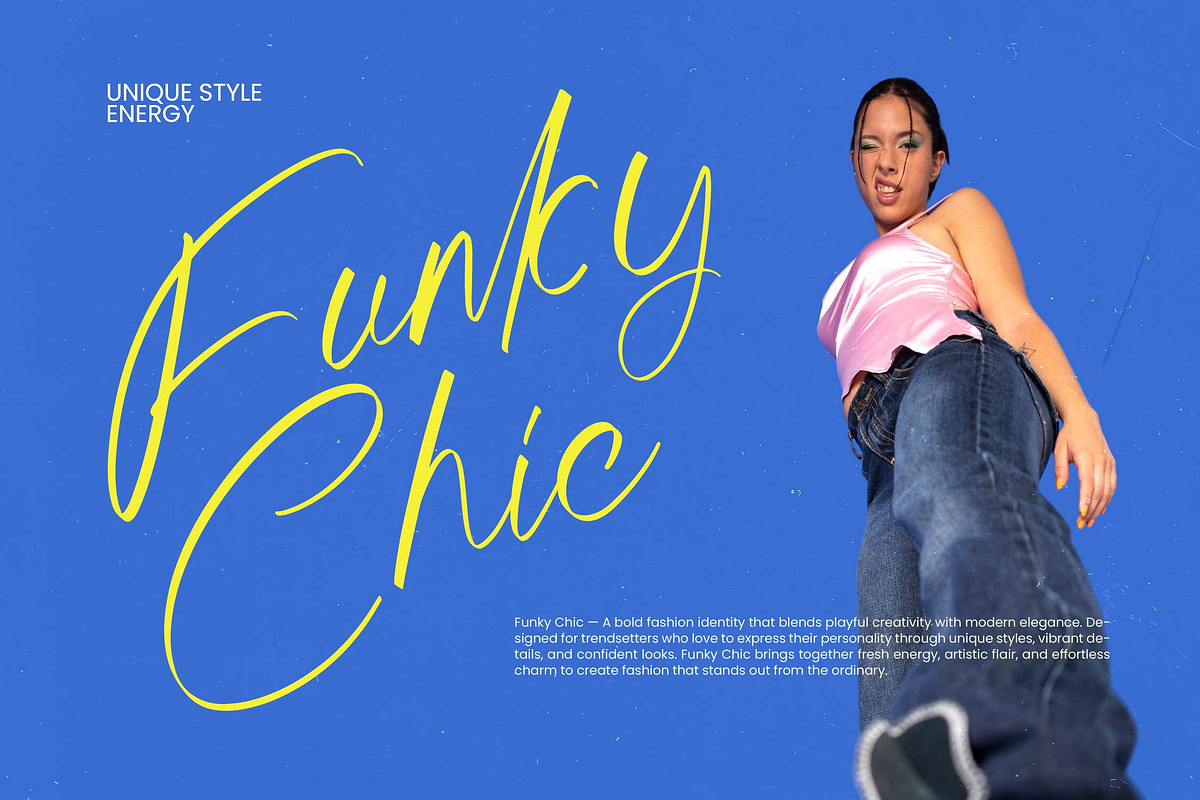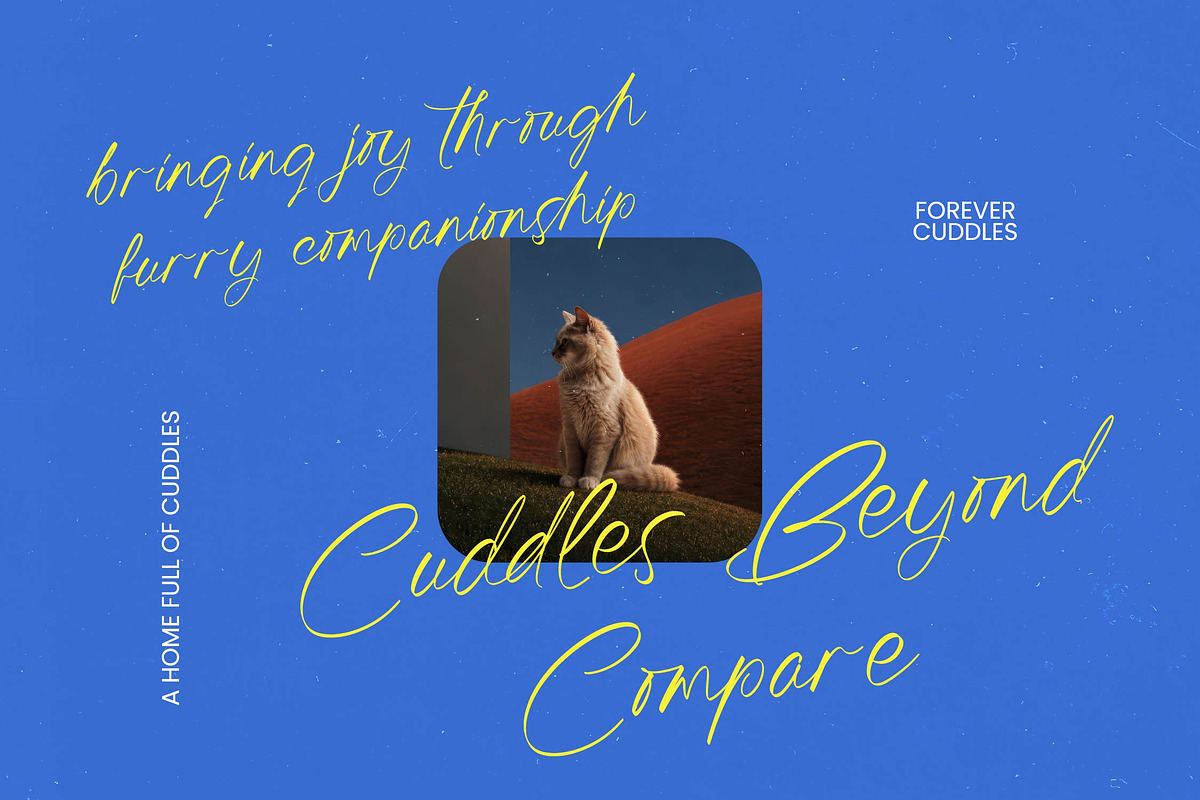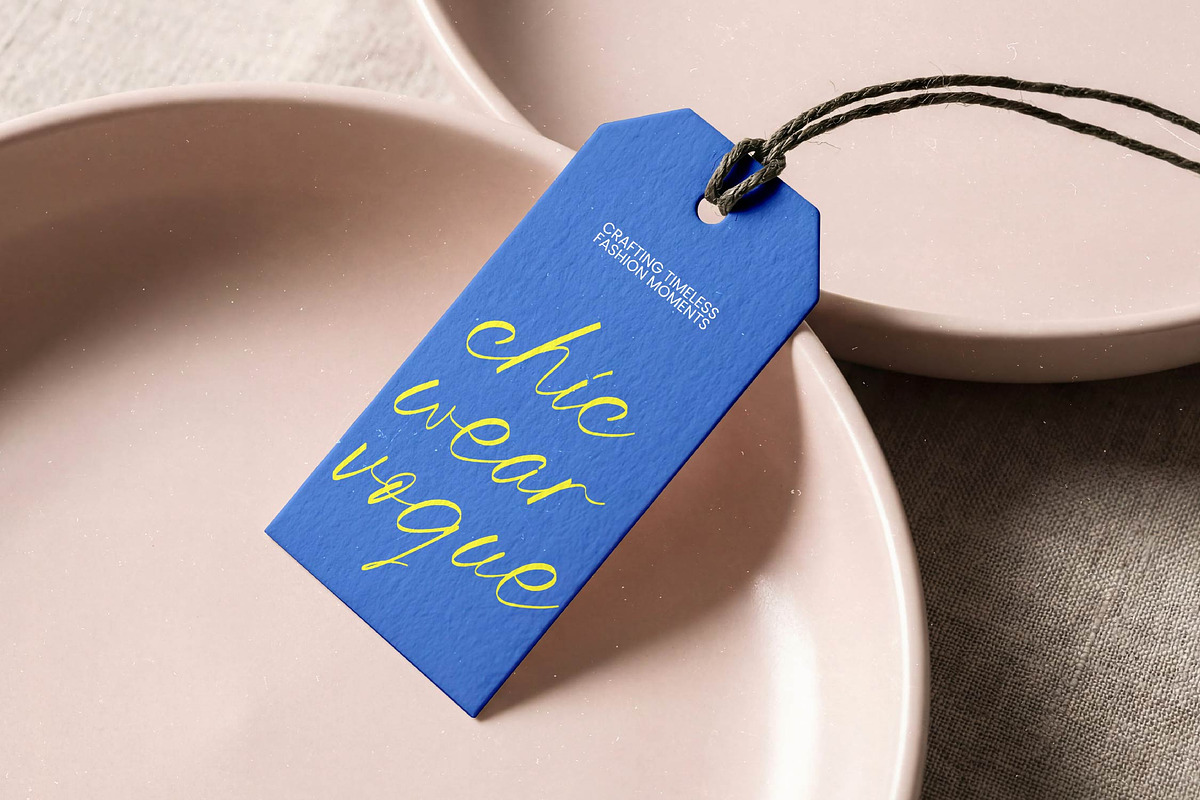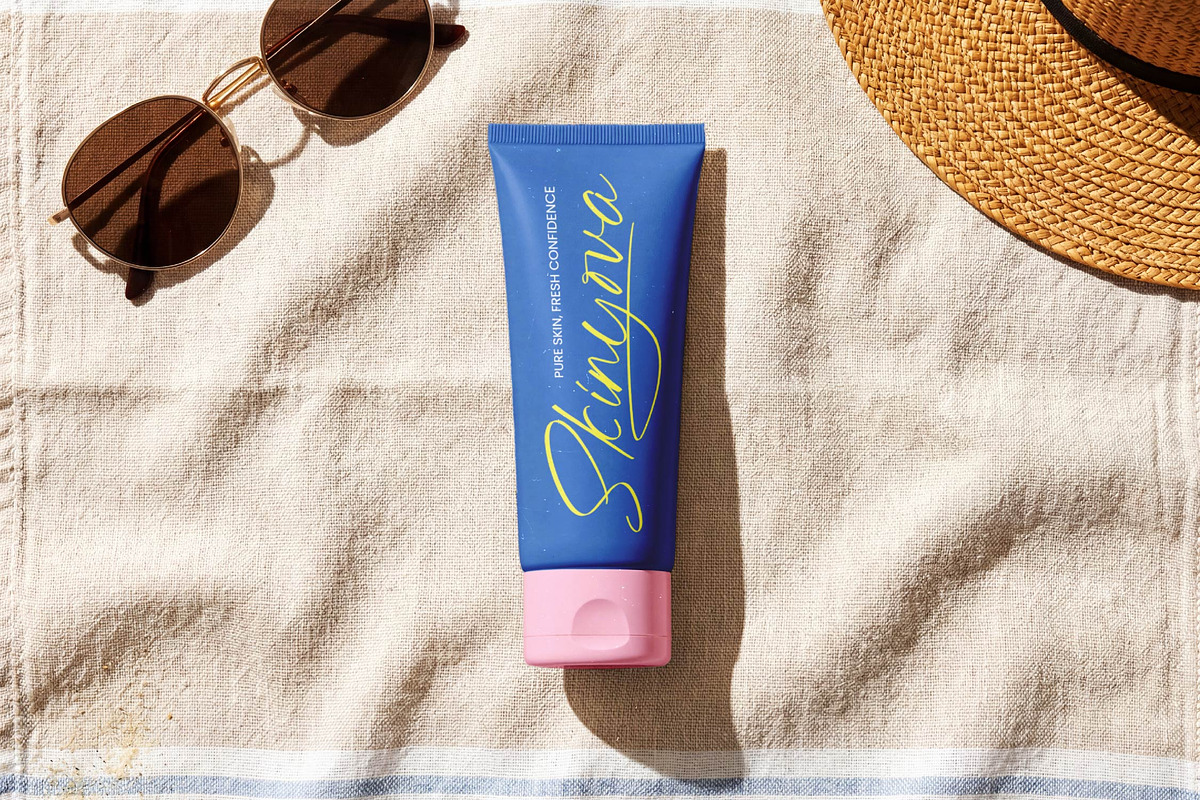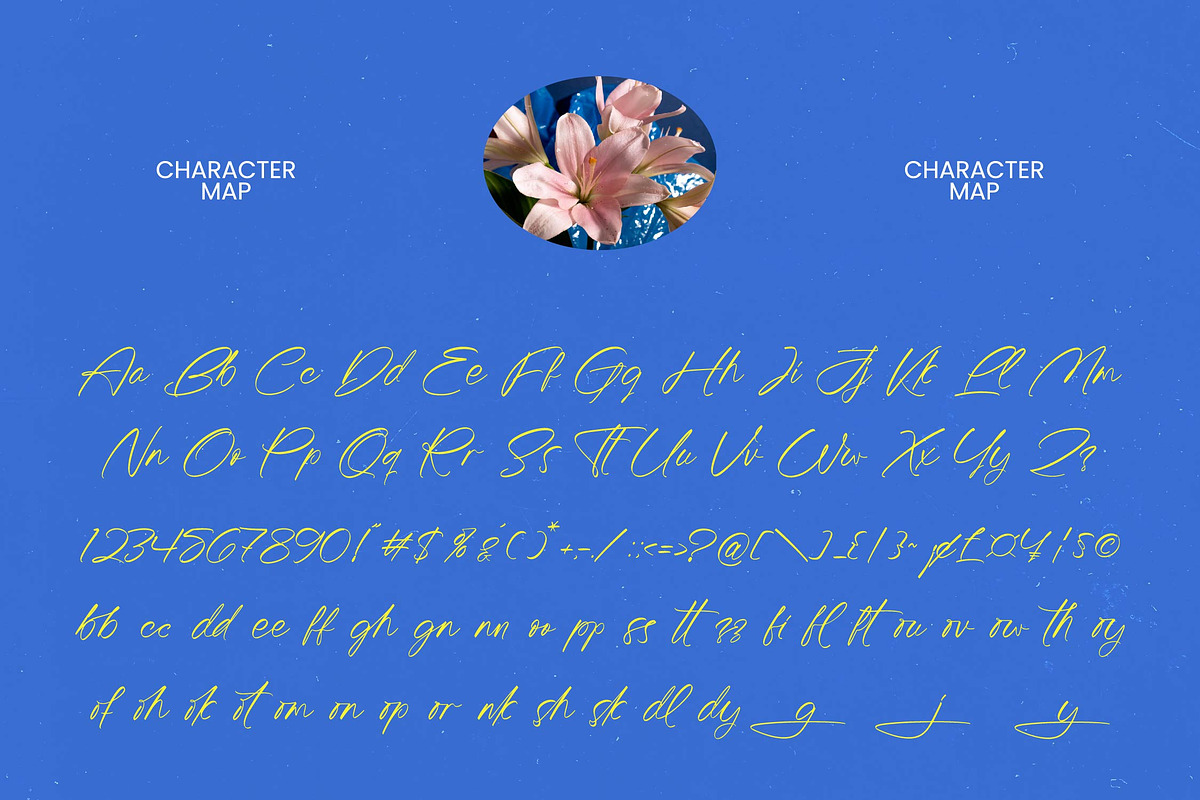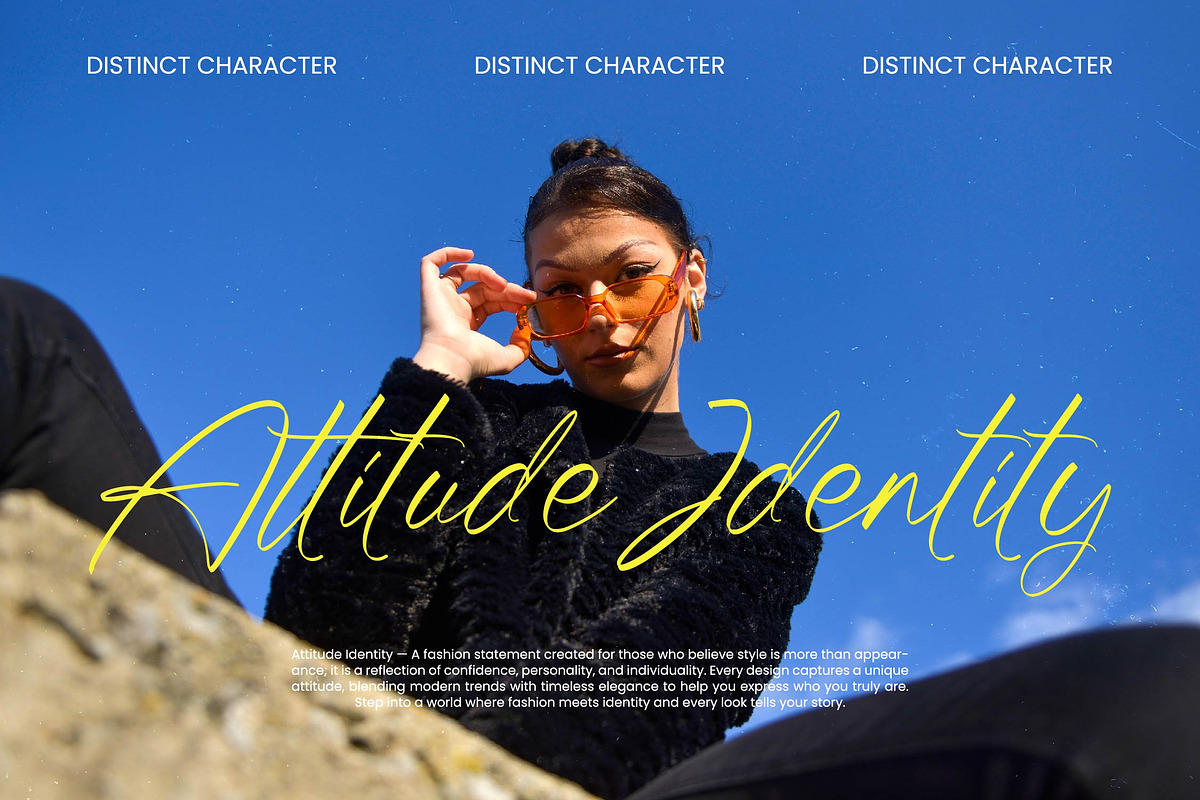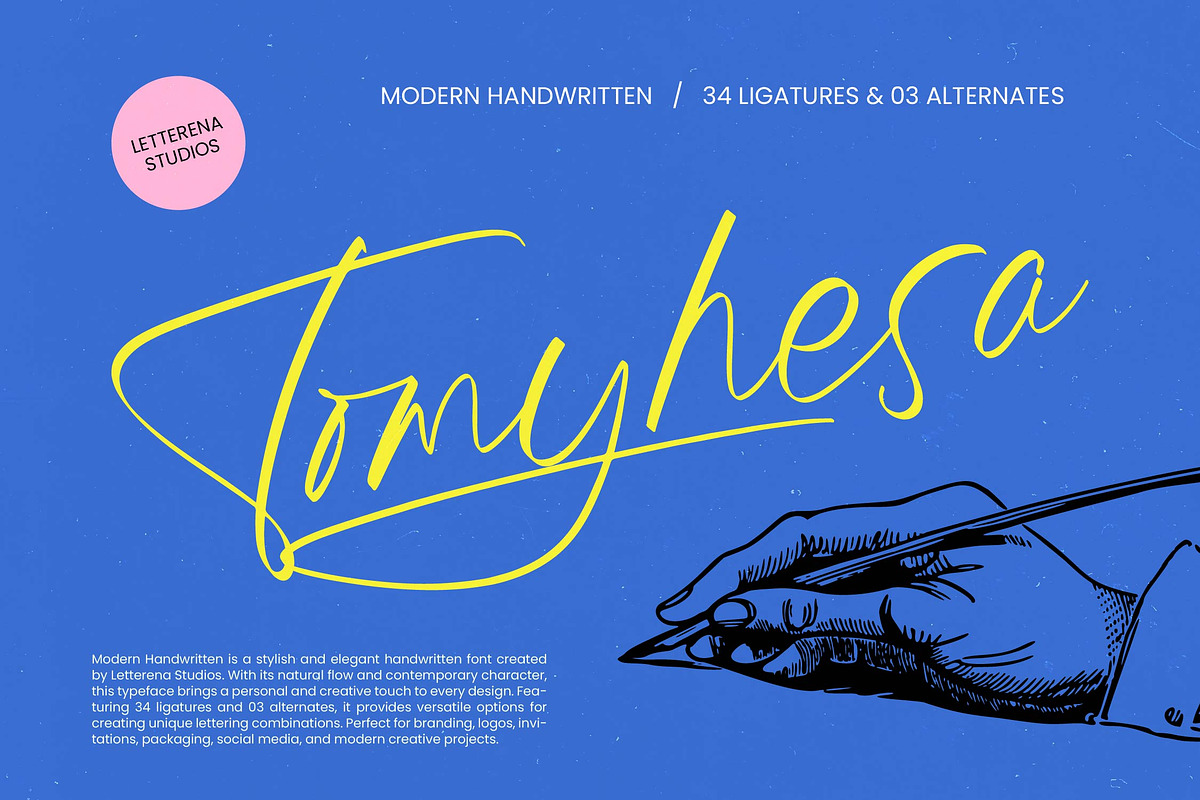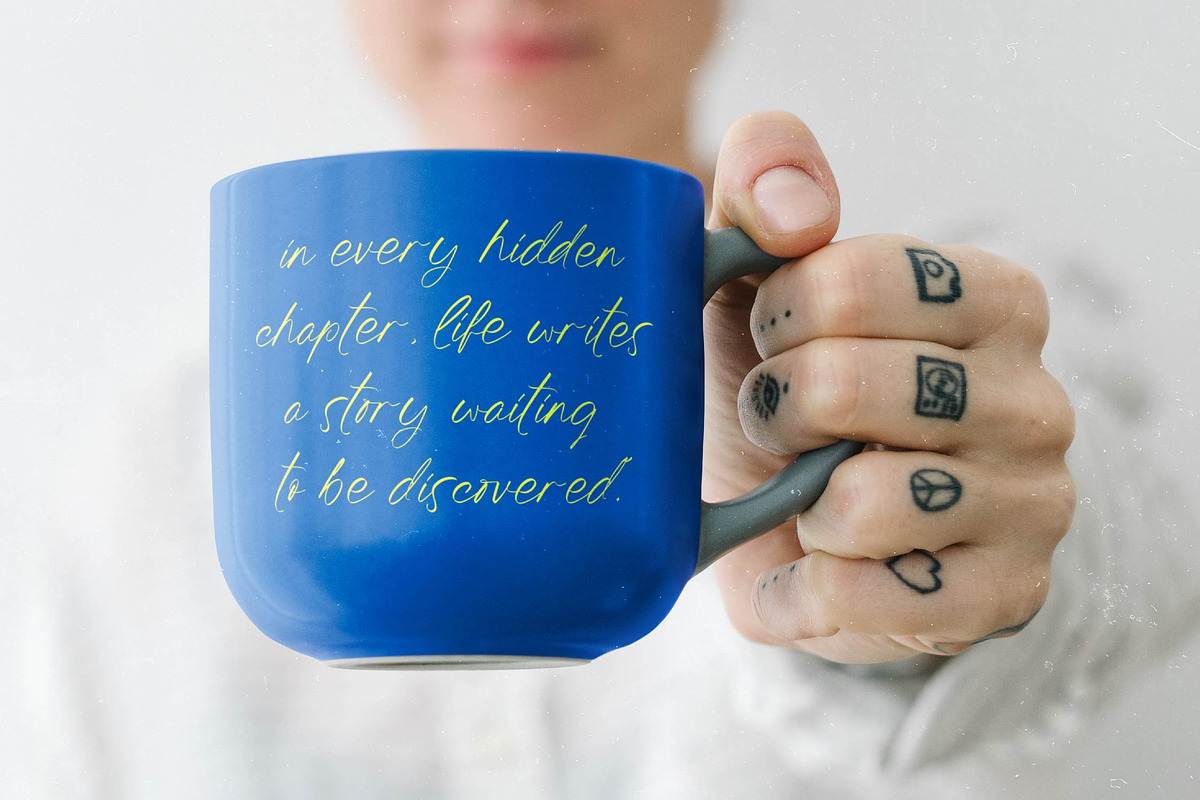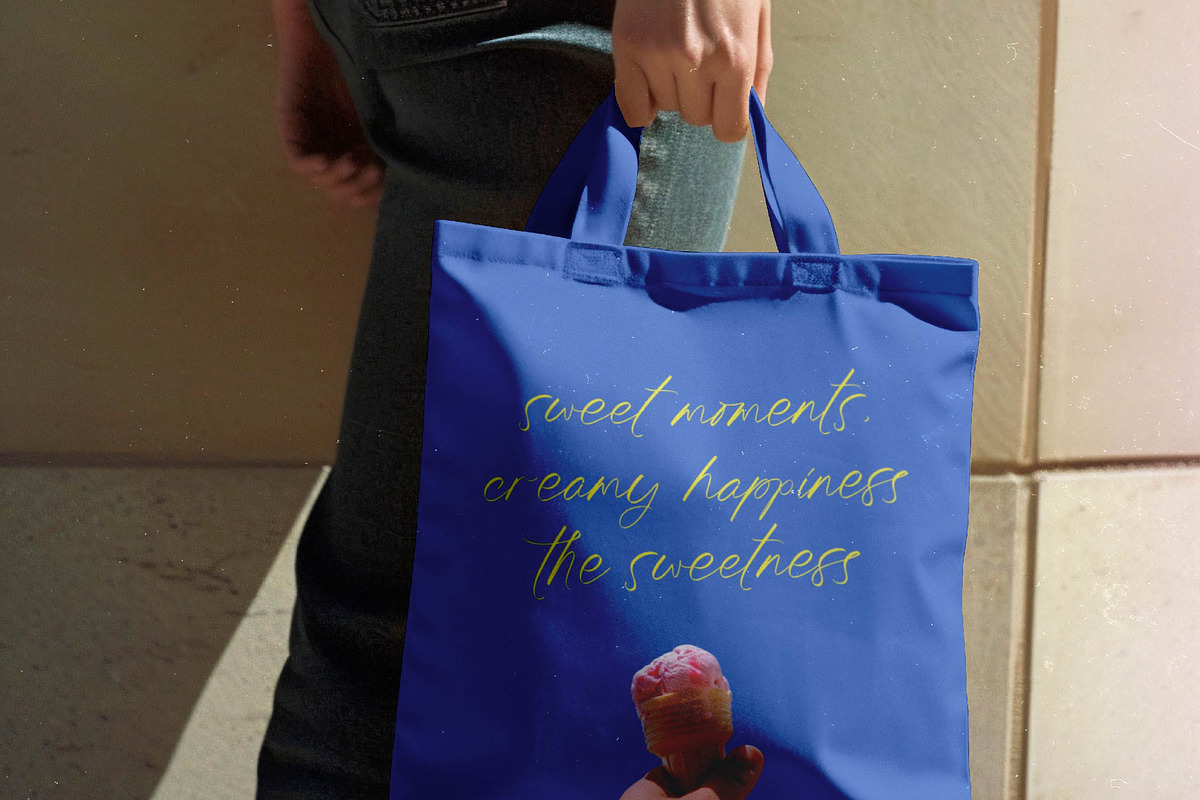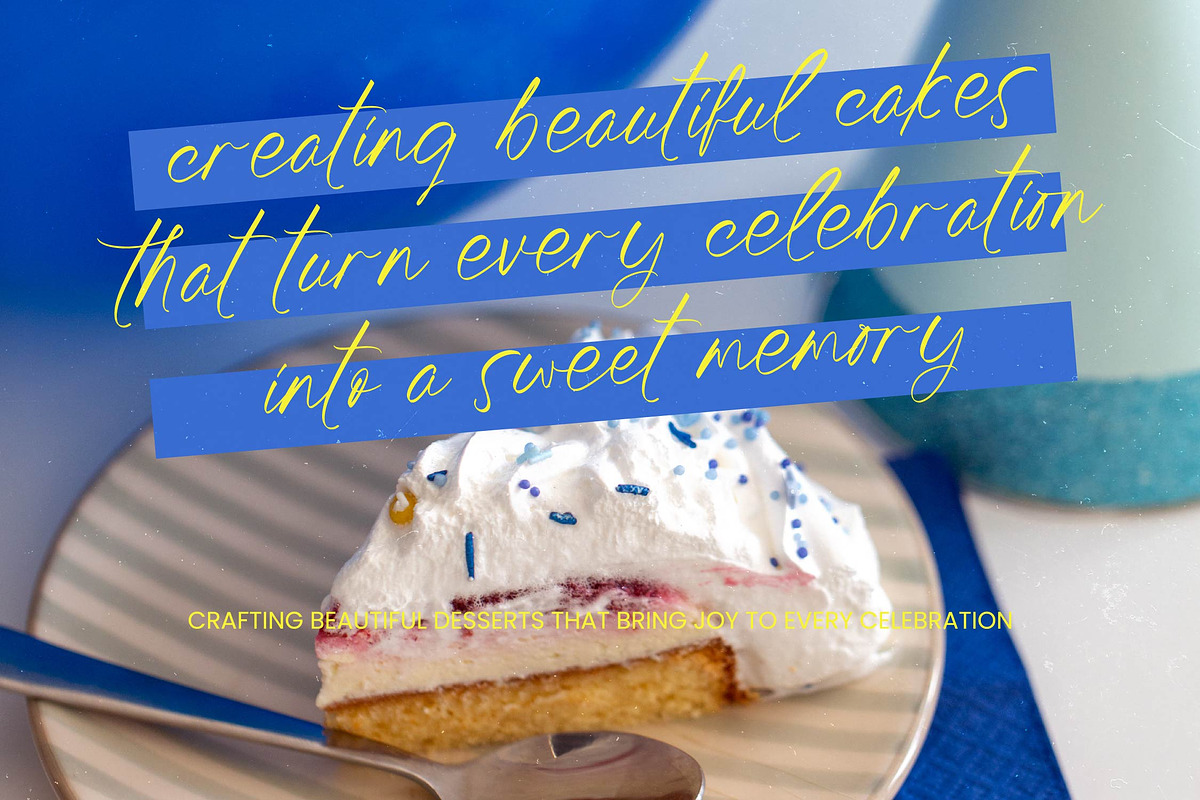
Tomyhesa Modern Handwritten
Tomyhesa - Modern Handwritten
Elevate your creative vision with a touch of authentic elegance and sophisticated flair. Tomyhesa - Modern Handwritten is a masterfully crafted typeface that captures a natural flow and contemporary character, bringing a personal, artisanal touch to every digital canvas. Its fluid strokes and rhythmic balance make it an essential tool for designers seeking to infuse their work with a sense of organic beauty and high-end style.
Experience unparalleled typographic versatility through a rich library of specialized character options. With its 34 ligatures and 03 alternates, Tomyhesa - Modern Handwritten provides a wealth of unique lettering combinations that ensure your text remains visually engaging and distinct. These professional features allow for seamless customization, enabling you to create bespoke typography that mirrors the nuanced look of hand-rendered calligraphy.
Expand your brand’s reach across borders with a font designed for global communication and diverse audiences. With its extensive multilingual support, Tomyhesa - Modern Handwritten adapts seamlessly across global markets, making it incredibly versatile for international projects. This robust language compatibility ensures that your message remains consistent and impactful, regardless of the geographic location or the linguistic requirements of your next commercial campaign.
Discover the perfect typographic partner for high-end design projects and premium branding ventures. Tomyhesa - Modern Handwritten is perfect for luxury branding, premium packaging, editorial design, and signature logos. Whether you are developing social media content, invitations, or modern creative projects, this font delivers a polished, professional aesthetic that resonates with quality and contemporary creativity.